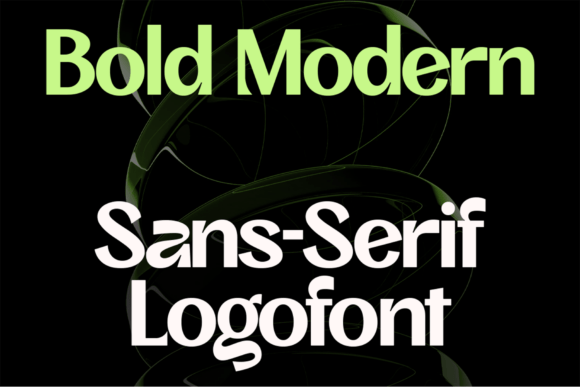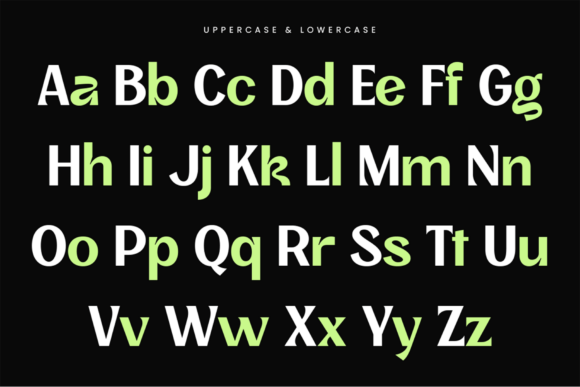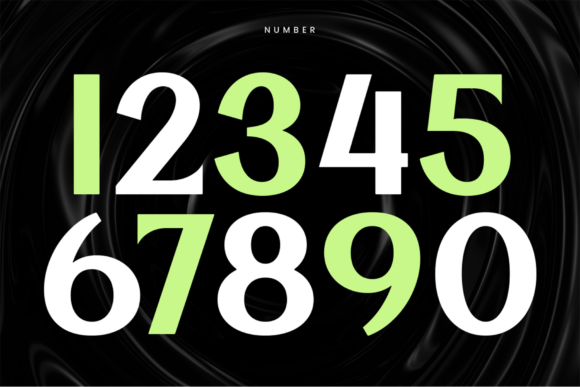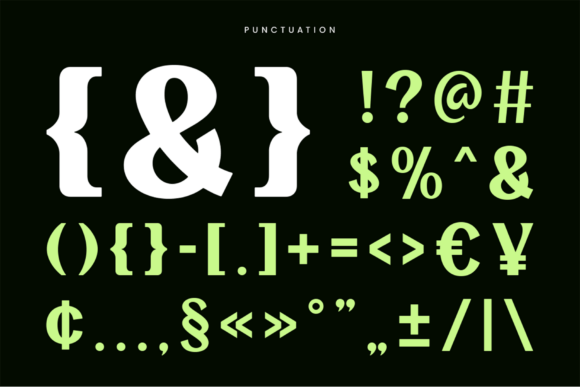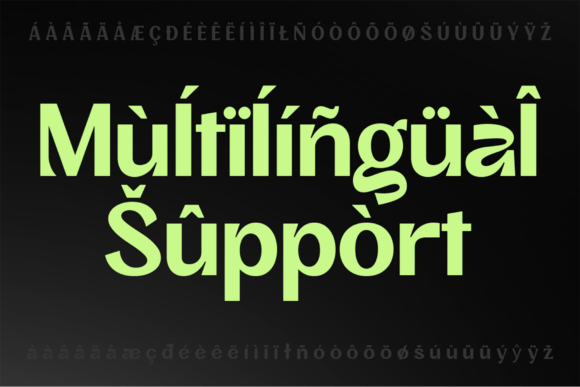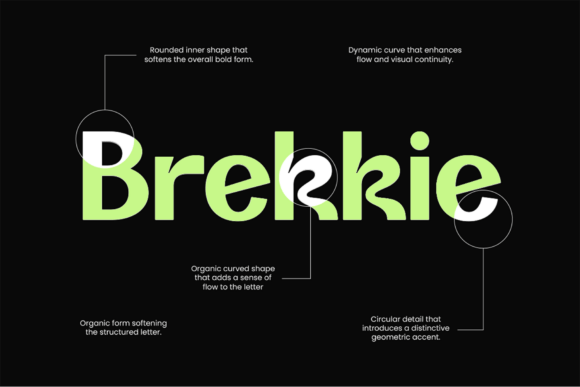
Introducing AFFINIK: The Ultimate Modern Sans-Serif Logofont for Designers
In the world of design, fonts play a crucial role in conveying the message and aesthetic of a brand. A well-chosen font can elevate a design from ordinary to extraordinary. If you’re a designer or craftsperson looking for a bold, modern sans-serif logofont that exudes professionalism and friendliness, look no further than AFFINIK.
What Makes AFFINIK Stand Out?
AFFINIK is a bold modern sans-serif logofont that boasts a clean and professional look. Its letterforms are smooth, simple, and slightly geometric, making it feel strong yet approachable. This font strikes a perfect balance between modern style and readability, ensuring that your text looks clear and confident in any layout.
Whether you’re designing a logo, branding materials, or marketing visuals, AFFINIK is an excellent choice. Its versatility makes it suitable for various design needs, including tech companies, startups, business presentations, websites, and social media content.
Key Features of AFFINIK
- Uppercase and Lowercase: AFFINIK includes both uppercase and lowercase letters, allowing you to create a wide range of designs.
- Numbers, Symbols, and Punctuation: The font also features numbers, symbols, and punctuation marks, making it a comprehensive solution for your design needs.
- Multilingual Support: With AFFINIK, you can create designs in multiple languages, making it an excellent choice for global brands.
AFFINIK is an excellent choice for a wide range of design applications, including:
- Logos and Branding: Create a strong and memorable brand identity with AFFINIK.
- Tech Companies and Startups: The font’s modern and sleek design makes it perfect for tech companies and startups.
- Business Presentations: Use AFFINIK to create professional and engaging business presentations.
- Websites and Social Media Content: The font’s readability and versatility make it an excellent choice for websites and social media content.
- Corporate Identity: Establish a strong corporate identity with AFFINIK.
- App Design: The font’s clean and modern design makes it perfect for app design.
- Product Ads: Use AFFINIK to create eye-catching product ads.
- Signage: The font’s bold and clear design makes it suitable for signage.
- Clean Marketing Visuals: Create stunning marketing visuals with AFFINIK.
Why Choose AFFINIK?
If you’re looking for a font that feels modern, neat, and reliable, AFFINIK is an excellent choice. Its unique blend of modern style and readability makes it perfect for designers and craftspersons who want to create stunning designs.
With AFFINIK, you can:
- Create a strong and memorable brand identity.
- Elevate your designs with a modern and sleek font.
- Ensure readability and clarity in any layout.
- Enjoy flexibility with multilingual support and various design applications.
In conclusion, AFFINIK is a versatile and modern sans-serif logofont that is perfect for designers and craftspersons who want to create stunning designs. Its unique features, flexibility, and readability make it an excellent choice for various design applications.